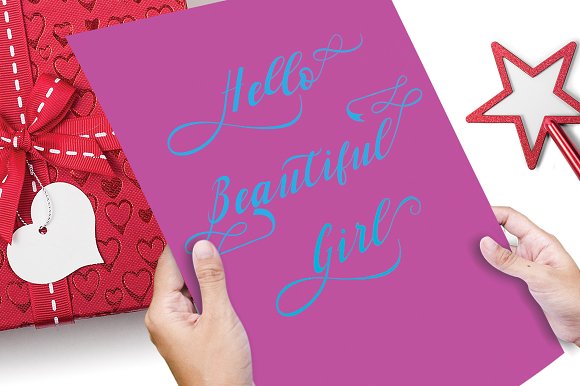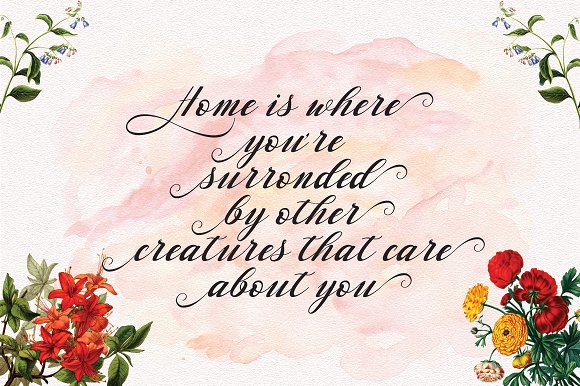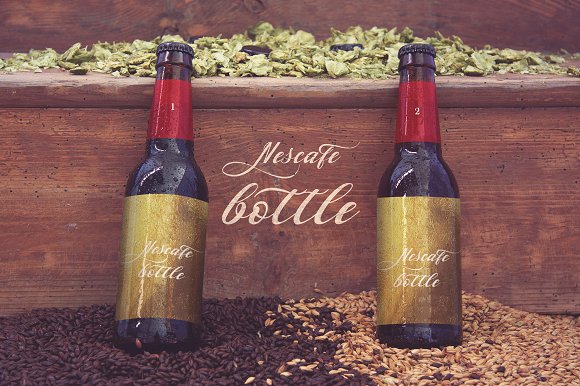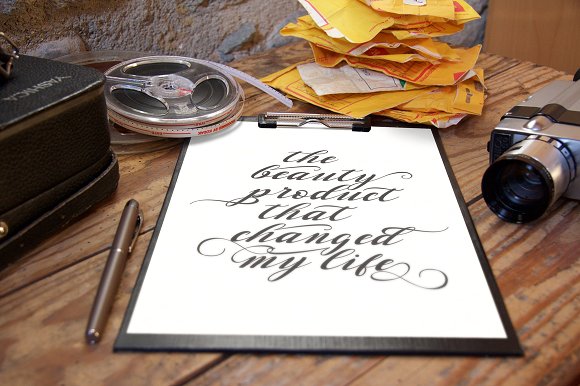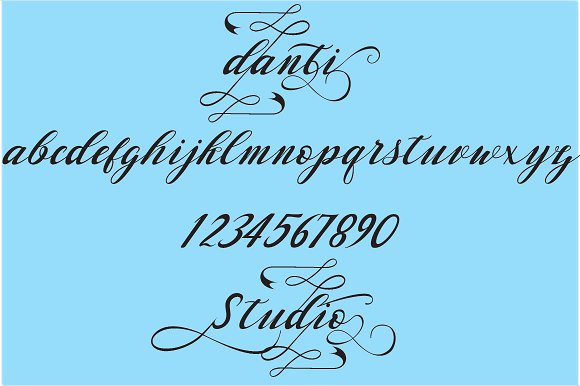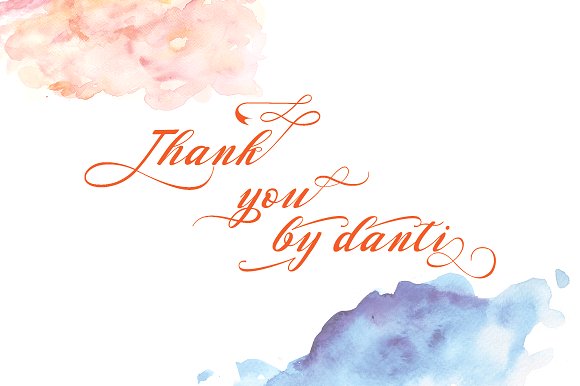
Waterbug Font
Waterbug is a stunning handwritten font created by Danti.
This font features beautiful swashes that are easily accessible in any application.